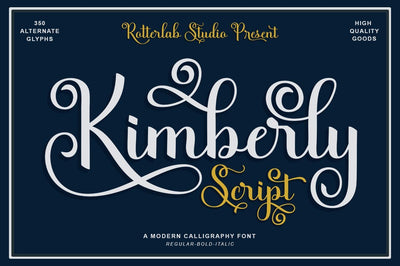
Kimberly Script | 3 Style
Kimberly Script is a contemporary calligraphic typeface, a mixture of retro script. get a classic and elegant touch. Can be used for various purposes.such as logos, wedding invitations, t-shirts, letterheads, signage, labels, news, posters, badges etc.
Kimberly Script features 583+ glyphs and 350 alternate characters, ligatures, swash and multiple language support.